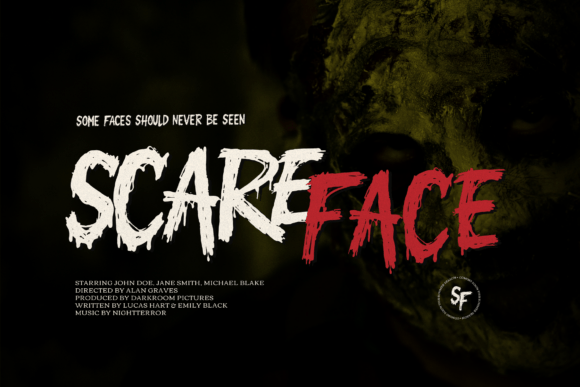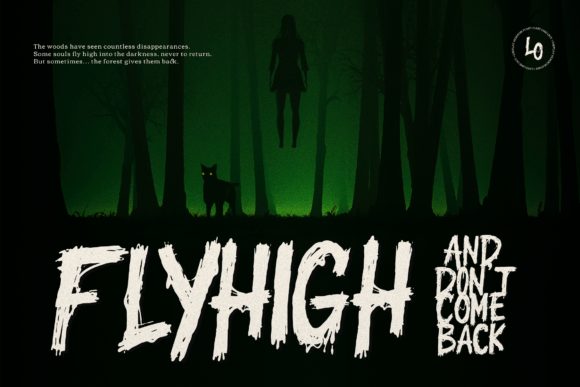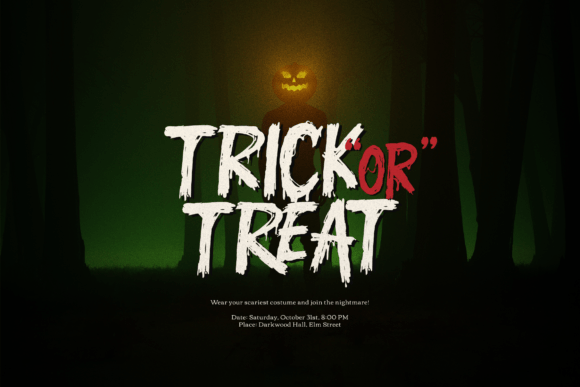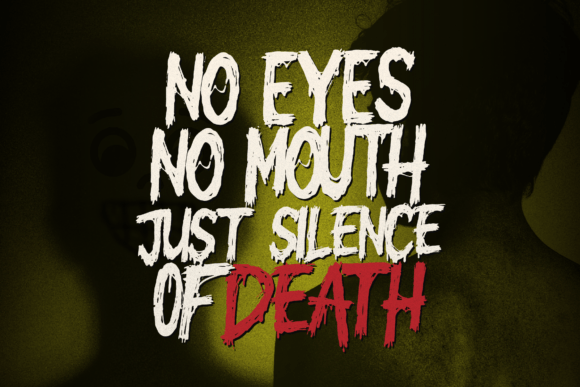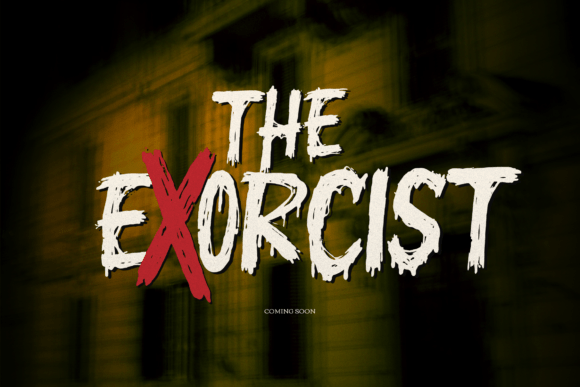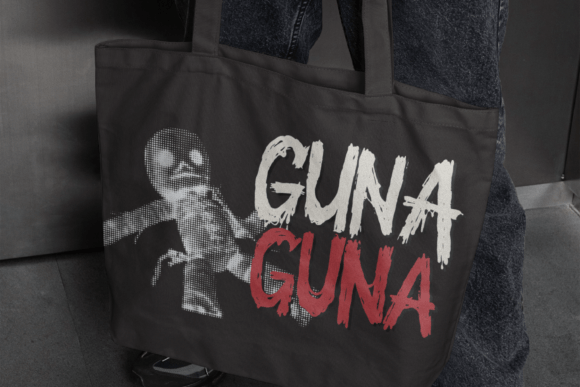
Introduction to Lastone out Font
As a designer, there’s nothing quite like the thrill of bringing a creative project to life. The rush of adrenaline as you experiment with different fonts, colors, and textures to evoke the perfect mood. For horror and thriller-inspired projects, one font stands out from the rest: the Lastone out Font. Its bold and chilling display typeface is designed to send chills down your audience’s spines and leave a lasting impression.
With its rough brush strokes, jagged edges, and distressed texture, the Lastone out Font is a high-quality design resource that’s sure to elevate any project. Whether you’re working on a horror poster, movie title, or book cover, this font is the perfect choice to create a haunting atmosphere. And the best part? It’s available for free download, making it an accessible resource for designers of all levels.
So why is the Lastone out Font so valuable for designers? For one, its unique and terrifying visual presence is guaranteed to grab attention and leave a lasting impact. Its heavyweight and expressive texture also makes it highly impactful in large-scale designs. Plus, with a transparent background, you can easily integrate it into any design project, from gaming graphics to dark-themed branding.
Lastone out Font
- High-quality design resource ideal for creative projects, offering a unique aesthetic.
- Comes with a transparent background, allowing for seamless integration into various designs.
- Includes 3 font styles with varying weights and widths to cater to different design needs.
- Designed at a high resolution (300 DPI) for optimal print quality.
- Perfect for use in logos, branding, and other creative projects where a distinctive font is required.
Honest Review: Lastone out Font
I recently stumbled upon the Lastone out Font, and I must say it’s been a game-changer for my design projects. As a design resource enthusiast, I’m always on the lookout for high-quality fonts that can elevate my creative work.
- ✨ Unique and modern design aesthetic
- ✨ High-quality vector graphics
- ✨ Transparent background, making it easy to use on various design backgrounds
However, I do have a few gripes:
- ⚠️ Limited font styles and weights
- ⚠️ Not suitable for projects requiring complex typography
Overall, I’m impressed with the Lastone out Font. Its unique design and high-quality graphics make it an excellent addition to my design resource library. While it may not be suitable for every project, I appreciate its free availability and transparent background. I’d definitely recommend it to designers working on creative projects that require a modern and sleek aesthetic.
Tips for Getting the Most Out of Lastone out Font
Experiment with different font sizes and colors to create visual interest. Combine with other design elements to create a cohesive look.
Lastone out Font is ideal for creative projects, such as graphic design, digital art, or social media graphics. It can also be used for presentations, reports, or marketing materials.
Poppins Font compares well to Lastone out Font in terms of its clean and minimalist design. However, Poppins Font is more versatile and suitable for a wider range of design applications.
Montserrat Font is a geometric sans-serif typeface that’s perfect for designers looking for a high-quality design resource. It features a strong and modern aesthetic, making it ideal for creative projects that require a bold and eye-catching font. It’s also available for free download and comes with a transparent background.